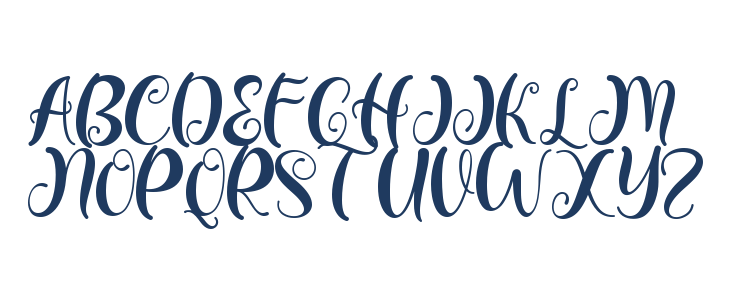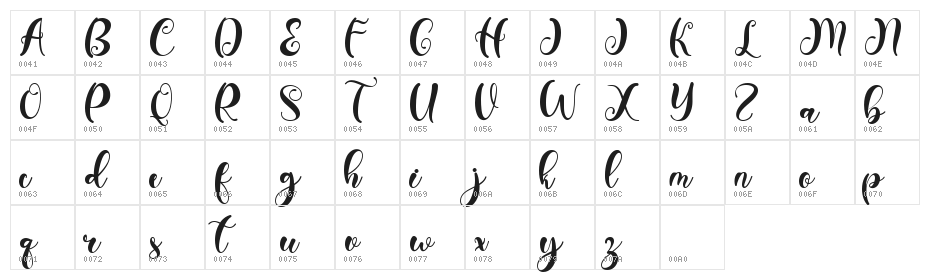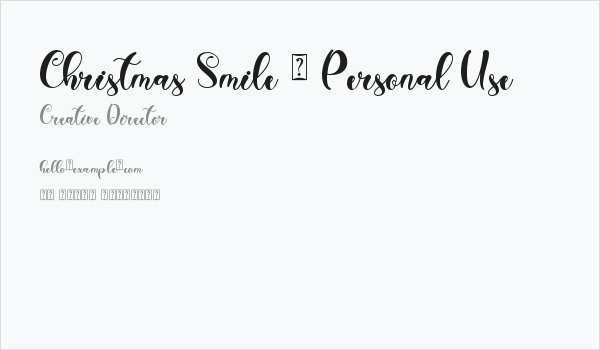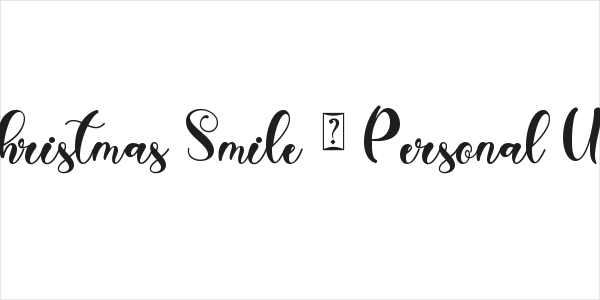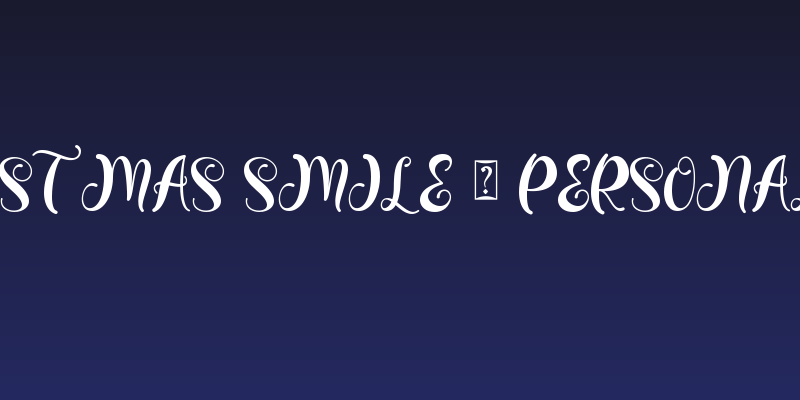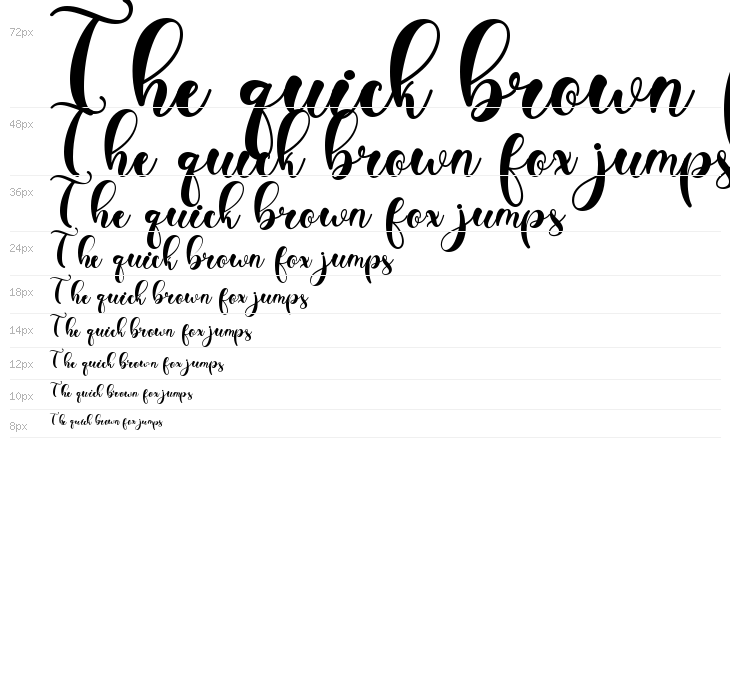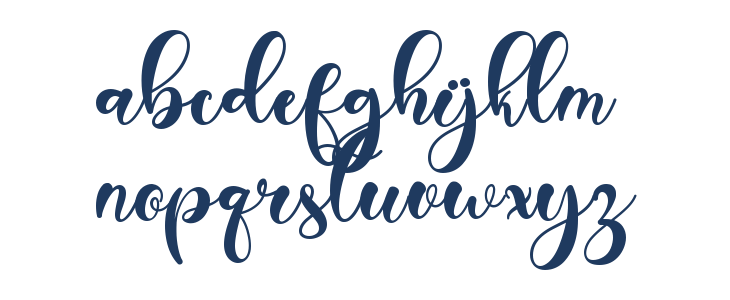
Christmas Smile - Personal Use Font
Christmas Smile - Personal Use Description
A decorative script font with playful, swirling strokes and a handwritten feel. The characters feature prominent loops and flourishes, giving it a festive and whimsical appearance. The uppercase and lowercase letters are highly stylized, with varying stroke thickness and expressive curves.
| Overall Style | Decorative, Festive, Handwritten |
| Use Case | Headlines, Invitations, Greeting cards, Decorative text |
| Proposed Projects | Holiday cards, invitations, festive branding, event posters, decorative signage. |